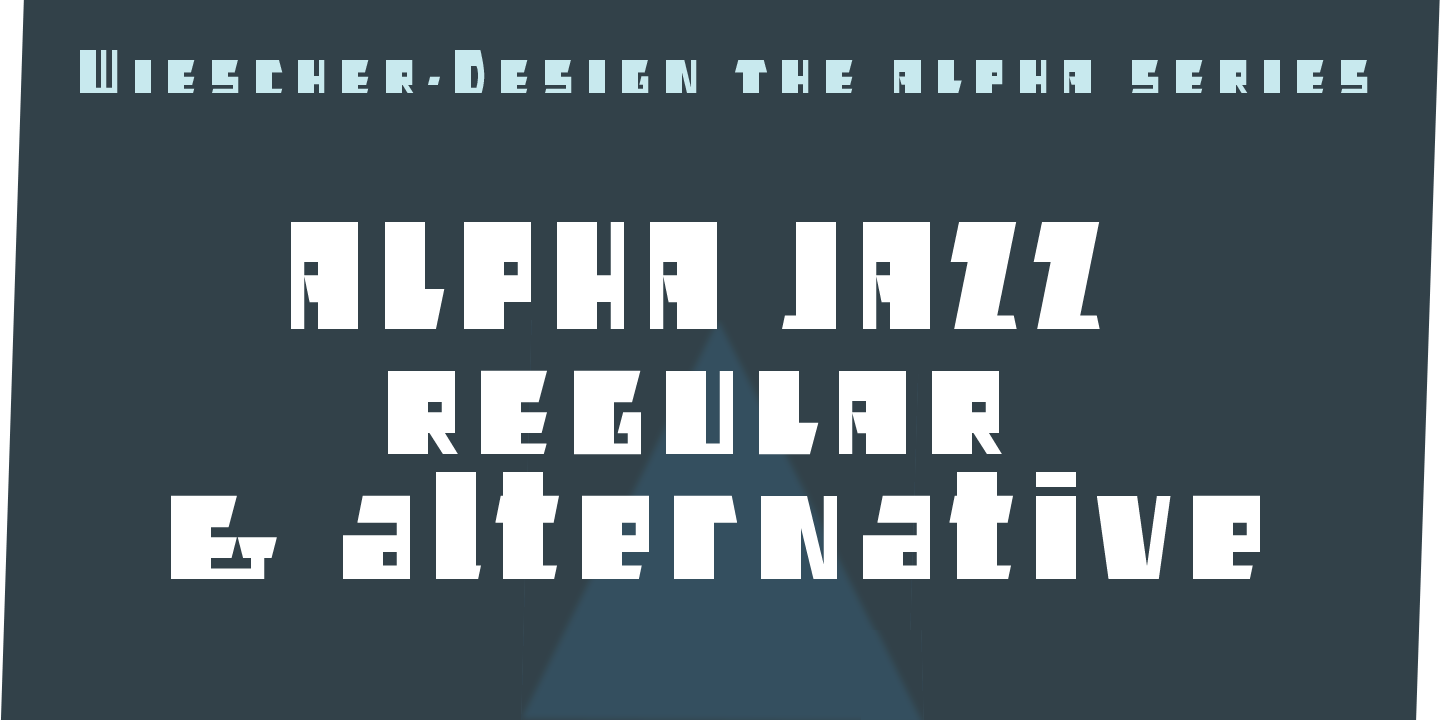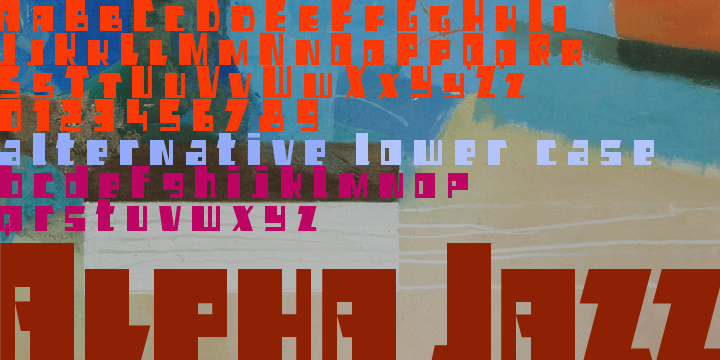
Alpha Jazz
Font Family by Wiescher Design
Alpha Jazz is another font in my alpha-series, the experimental font series. It lends itself well for all kind of modernistic occasions and for Jazz in all forms.